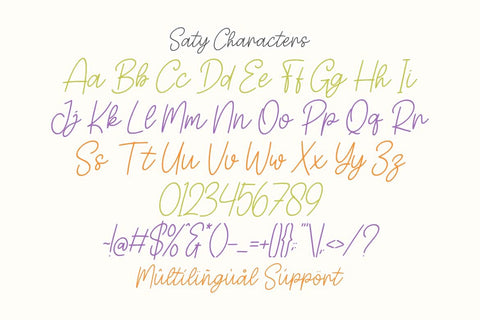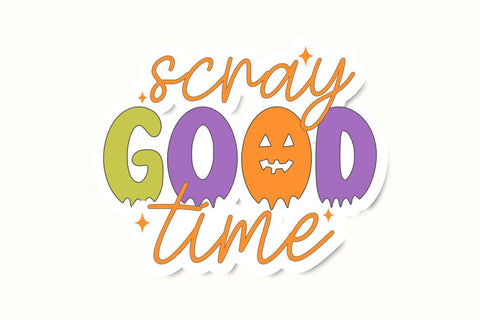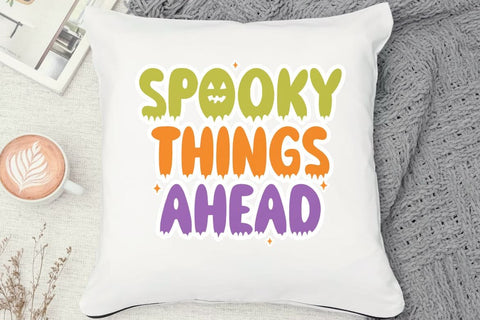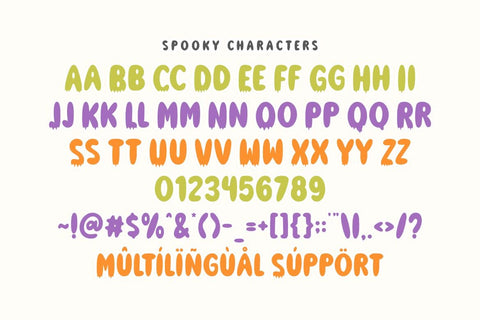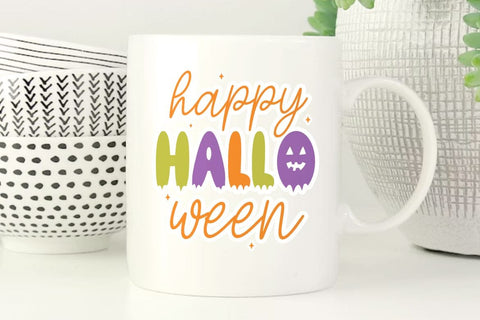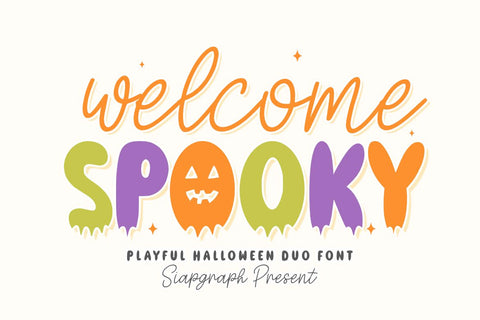
Welcome spooky - Playful Halloween Duo Font
Stay spooky is a delightful Playful Halloween Duo Font specially crafted to bring a fun, friendly, and festive vibe to your seasonal designs. This pack features a bold, chunky display font with dripping details and spooky character accents paired with a smooth, casual handwriting script, allowing you to create perfectly balanced and eye-catching compositions. Its clean and solid construction is optimized for the crafting community, ensuring a seamless and frustration-free experience for vinyl cutting, sublimation, and high-quality digital printing.
Perfect for: creating high-impact SVG cut files, Halloween party invitations, trick-or-treat tote bags, spooky-cute t-shirts, festive stickers, autumn mugs, and playful social media graphics. Whether you are a professional Print on Demand (POD) seller or working on a special DIY holiday project, this font duo provides the ideal balance of readability and whimsical charm.
Great for holiday themes such as Halloween, Autumn/Fall festivals, Children's costume parties, and Fall celebrations, adding a sweet, cheerful, and festively spooky personality to all your seasonal design collections!